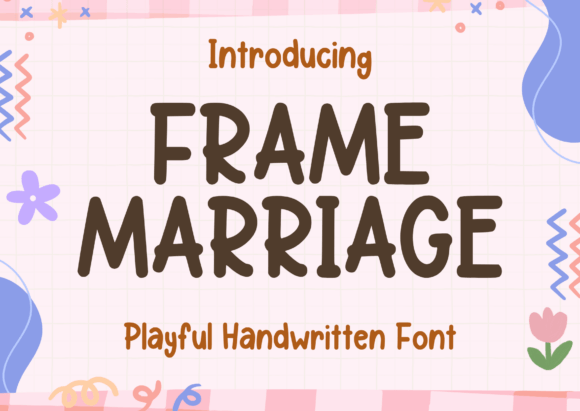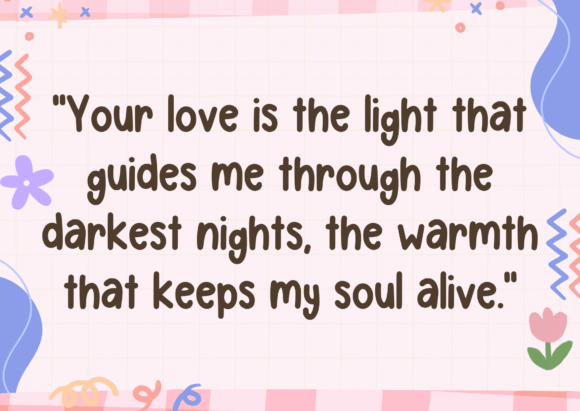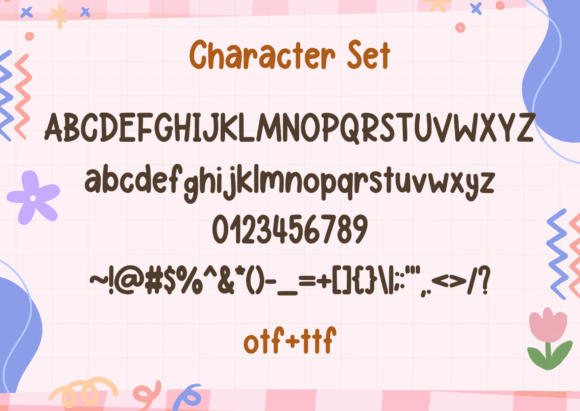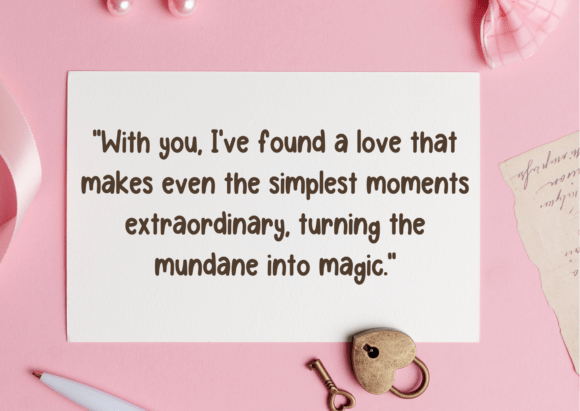
Frame Marriage Font
About the Frame Marriage Font
Get ready to be inspired by Frame Marriage Font, a fresh and dynamic typeface for modern creators. Frame Marriage is a fun and playful handwritten font that’s perfect for crafts, planners, KDP, stickers, greeting cards, and more. With its cute and friendly style, it works great for Cricut, sublimation, and creative DIY projects. Ideal for crafters, designers, and makers!
Frame Marriage’s playful hand-drawn style shines in headlines, short text blocks on packaging, and social media graphics. It’s ideal for projects requiring a friendly, approachable feel, such as children’s products, invitations, or branding for a small artisan business. Avoid using it for large amounts of body text or UI elements; its informality would hinder readability.
Pairing it with a clean sans-serif like Open Sans for body copy creates a balanced contrast between playful and professional. For a more sophisticated look, consider pairing it with a delicate serif font like Lora. A geometric sans-serif like Montserrat can offer a modern counterpoint to Frame Marriage’s organic feel.
The font’s overall personality is cheerful and approachable, making it a strong choice for brands that prioritize a friendly and accessible image.
Frame Marriage Font Usage Examples
Frame Marriage Font Example